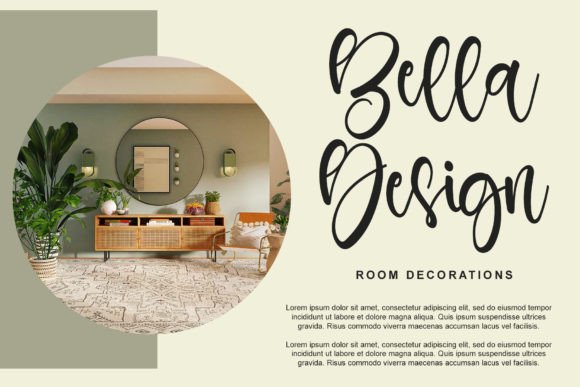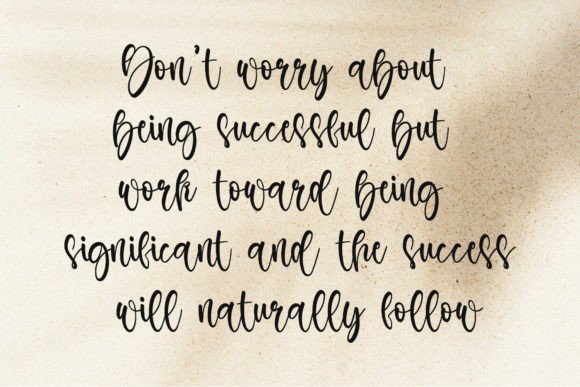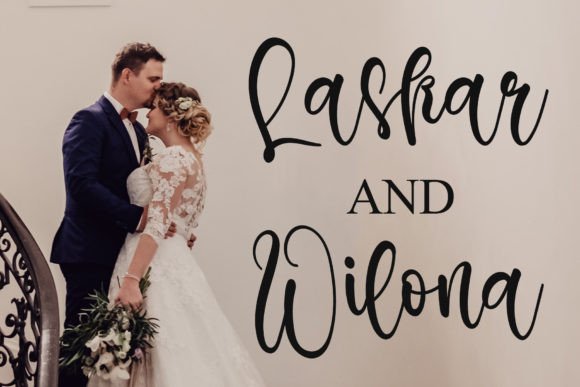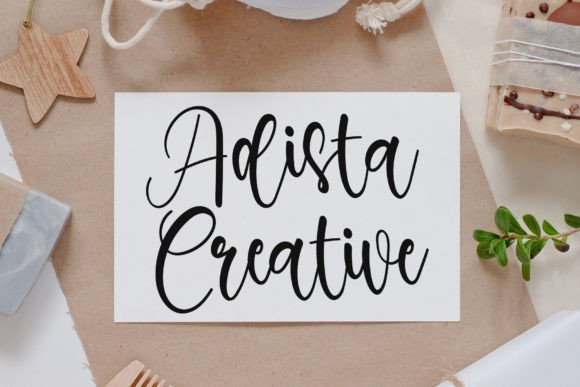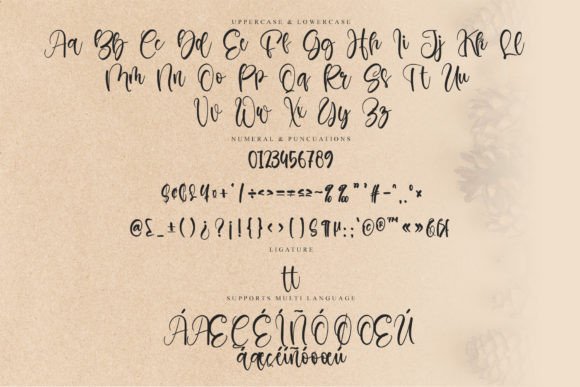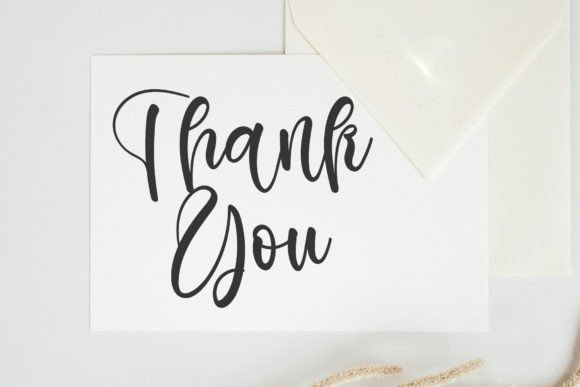
Introduction to Blessed Daily Font
Blessed Daily is a magical handwritten font carefully created to give a touch of elegance to your designs.
Whether youโ€™re looking for fonts for Instagram or calligraphy scripts for DIY projects, this font will turn any creative idea into a true piece of art .
Key Features of Blessed Daily Font
Why Choose Blessed Daily Font?
Blessed Daily Font offers exceptional quality and versatility, making it a valuable addition to your design toolkit. Whether you’re creating for personal projects or commercial use, Blessed Daily Font delivers professional results.